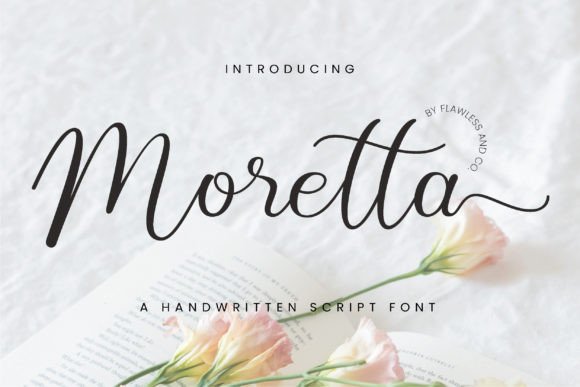
Introducing Morettaa Font, the ultimate script font for small type that will add a touch of sweetness and femininity to any project. Created by the talented team at Flawless And Co., this handwritten font is a must-have for designers, creators, and anyone looking to elevate their designs to the next level.
With its stunning swashes and alternates, Morettaa Font brings a unique and eye-catching element to your creations. Whether you're designing a poster, creating branding materials, crafting a wedding invitation, or simply looking to add some flair to your quotes, this font has got you covered.
What sets Morettaa Font apart is its PUA encoding. This means that accessing the delightful glyphs and swashes is effortless, allowing you to unleash your creativity without any limitations. Every character is carefully crafted to ensure a seamless and beautiful look, making your designs stand out from the crowd.
Imagine the impact of using Morettaa Font on your next project. Its delicate curves and elegant strokes will captivate your audience, leaving a lasting impression. Whether you're aiming for a romantic, whimsical, or sophisticated style, this font can effortlessly adapt to your vision.
Stand out from the competition with Morettaa Font. Its versatility allows it to be used in various contexts, from digital platforms to print materials. Your website, social media posts, packaging, and more will shine with its charming and captivating essence.
Let your creativity soar with Morettaa Font. Its charming and girly style will evoke emotions, capturing the hearts of your audience. Whether you're a professional designer or a DIY enthusiast, this font will empower you to create stunning visuals that leave a lasting impact.